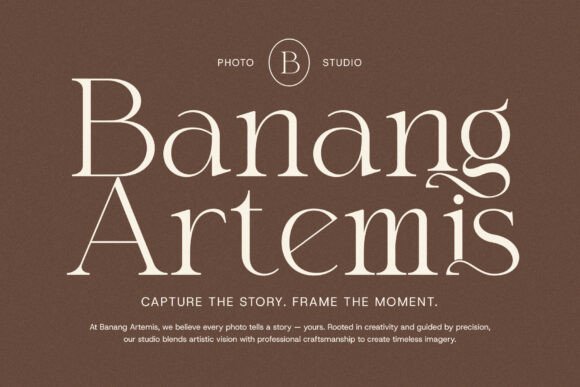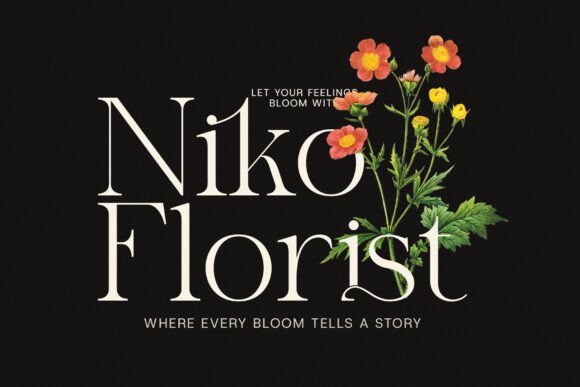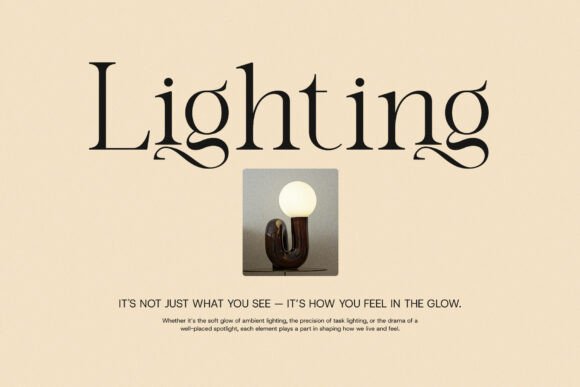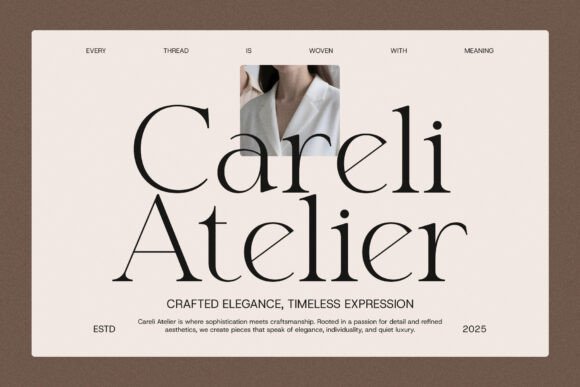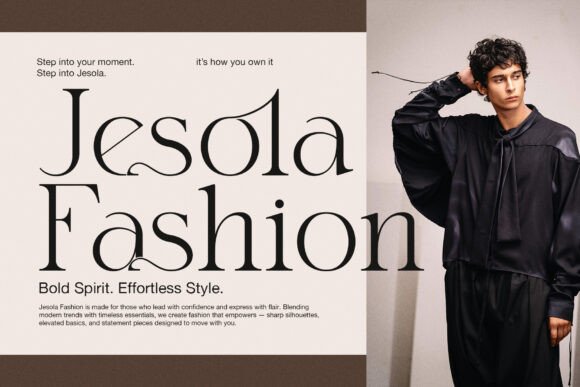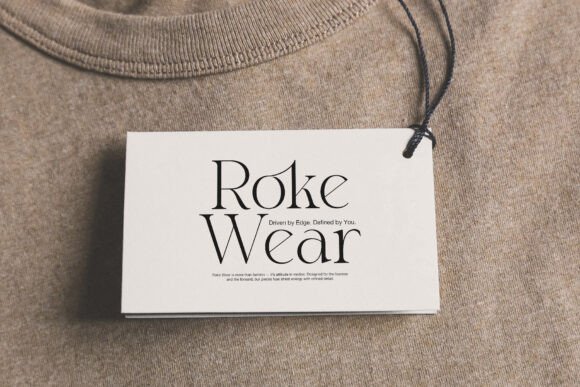
Introduction to Midens Font
As a designer, you know that the perfect font can make all the difference in elevating a project from good to great. It’s that moment when you stumble upon the perfect combination of style and sophistication, and you know you’ve found the one – the font that will take your design to new heights. For many, that font is the Midens Font.
With its sleek, sophisticated serifs and unique letterforms, Midens Font is the perfect design resource for creatives looking to add a touch of luxury to their projects. Whether you’re working on a high-end branding campaign or designing a sleek website, Midens Font’s elegant structure and exceptional readability make it a valuable asset in your design arsenal.
Key Features of Midens Font
- High-quality design: Midens Font offers a unique and elegant design perfect for creative projects.
- Transparent background: Midens Font features a transparent background, allowing for easy customization and layering.
- High-resolution design: Midens Font is designed at 300 DPI, making it suitable for high-quality printing and digital use.
- Unique characteristics: This font features a distinctive and modern style, making it an excellent choice for creative projects that require a unique touch.
- Perfect for design projects: Midens Font is an excellent resource for designers and artists working on creative projects that require a high-quality, professional font.
Honest Review: Midens Font
As a designer, I’m always on the lookout for high-quality design resources that can elevate my creative projects. Midens Font has been a game-changer for me, and I’m excited to share my honest review with you.
What works well: ✨ I love the clean and minimalist design of Midens Font. It’s perfect for creating a transparent background that lets my design elements shine. The font is also highly customizable, making it a great choice for designers who want to add a personal touch to their work. Plus, it’s a free download, which is a huge plus in my book!
- Perfect for transparent backgrounds
Any limitations: ⚠️ While Midens Font is an excellent choice for many projects, I do wish it had more font styles to choose from. Currently, there are only a few options, which can limit its versatility. Additionally, the font may not be suitable for very large or complex designs, as it can become difficult to read at certain sizes.
Overall impression: I’m thoroughly impressed with Midens Font, and I highly recommend it to designers of all levels. Its high quality, transparency, and customization options make it a valuable addition to any design resource library.
How to Use Midens Font
Midens Font is a high-quality design resource ideal for creative projects that require a unique and elegant touch. With its transparent background, this font is perfect for designers looking to add a touch of sophistication to their work.
Tips for Getting the Most Out of Midens Font
To get the most out of Midens Font, be sure to experiment with different font sizes, colors, and combinations to find the perfect look for your design.
Midens Font is perfect for a variety of design projects, including:
- Website headers and footers
Does Midens Font have a transparent background?
Yes, Midens Font has a transparent background, making it easy to use in designs with complex backgrounds or textures. The transparent background is achieved through the use of an alpha channel, which allows the font to blend seamlessly with other design elements.